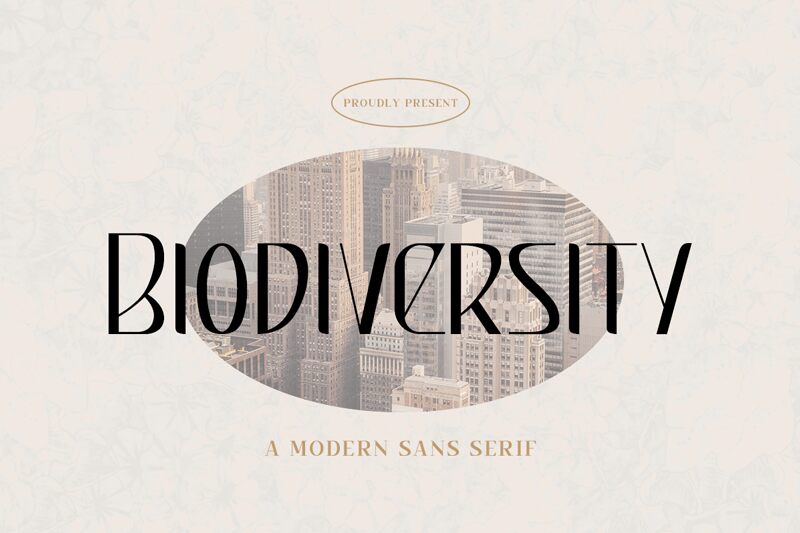
Biodiversity
Biodiversity, a creation by Kong Font, is a captivating display font that exudes a vintage charm. This semi-light typeface boasts condensed proportions, allowing for an elegant and sleek aesthetic. Its timeless appeal makes it perfect for branding projects seeking to evoke nostalgia or a sense of classic elegance. Additionally, Biodiversity's bold strokes and unique character shapes make it an ideal choice for eye-catching headlines in fashion magazines or retro-inspired advertisements.
Let this vintage sans serif font transport your designs to a bygone era while maintaining a contemporary edge.